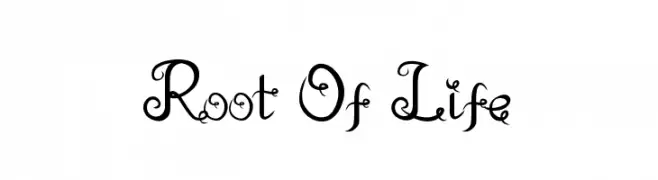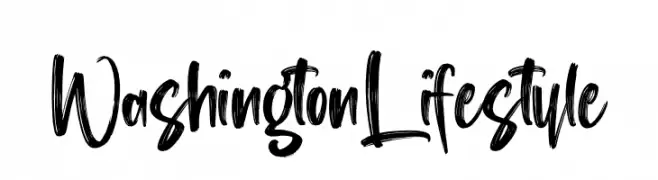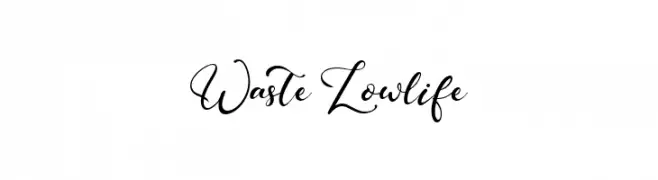
An elegant script font with flowing, cursive letterforms and sophisticated flair.
A graceful and elegant script font with flowing, cursive letters.
A bold, block-like font with rounded edges, perfect for impactful designs.
An ornate and decorative font with intricate swirls and flourishes.
A bold, angular font with a rugged, hand-drawn appearance.
A bold, brush-style font with dynamic, hand-painted strokes.
A bold, decorative font with a modern vintage flair, perfect for creative projects.
A bold, angular font with a graffiti-inspired, urban aesthetic.
A bold, flowing script font with connected characters and medium contrast.
A casual, handwritten script with a smooth, flowing style.